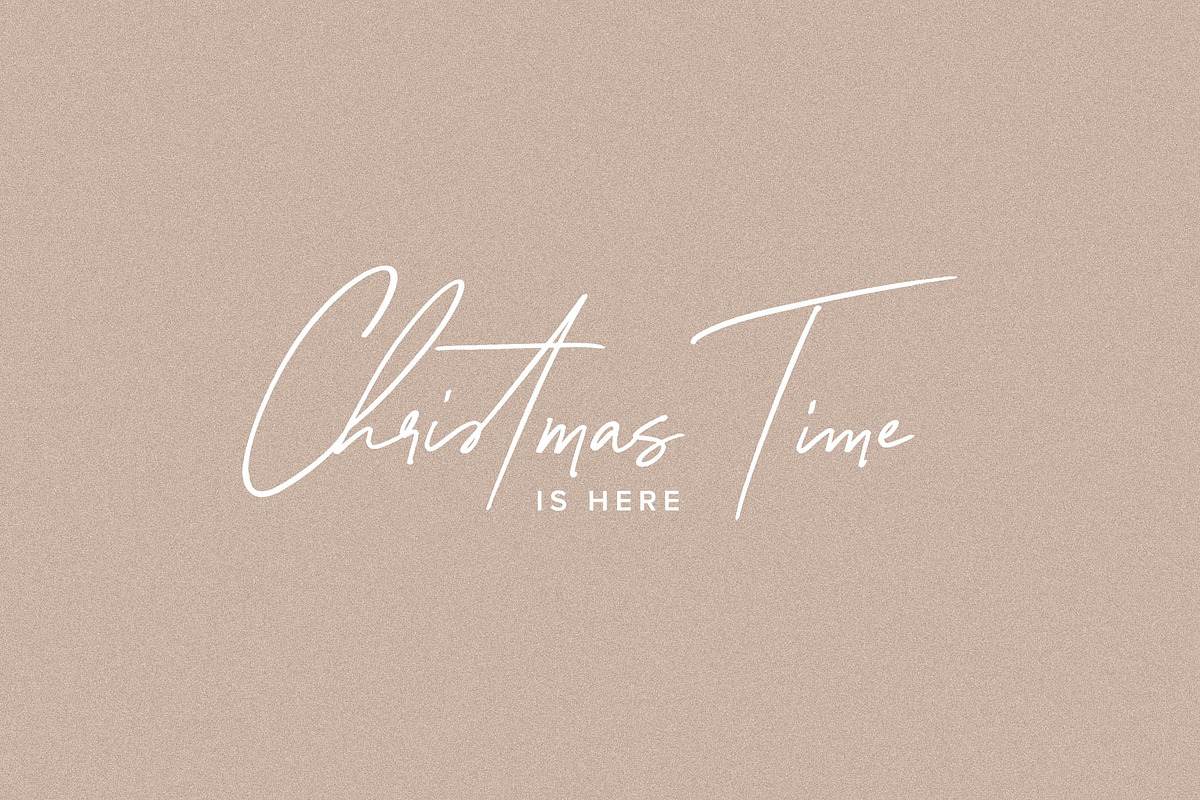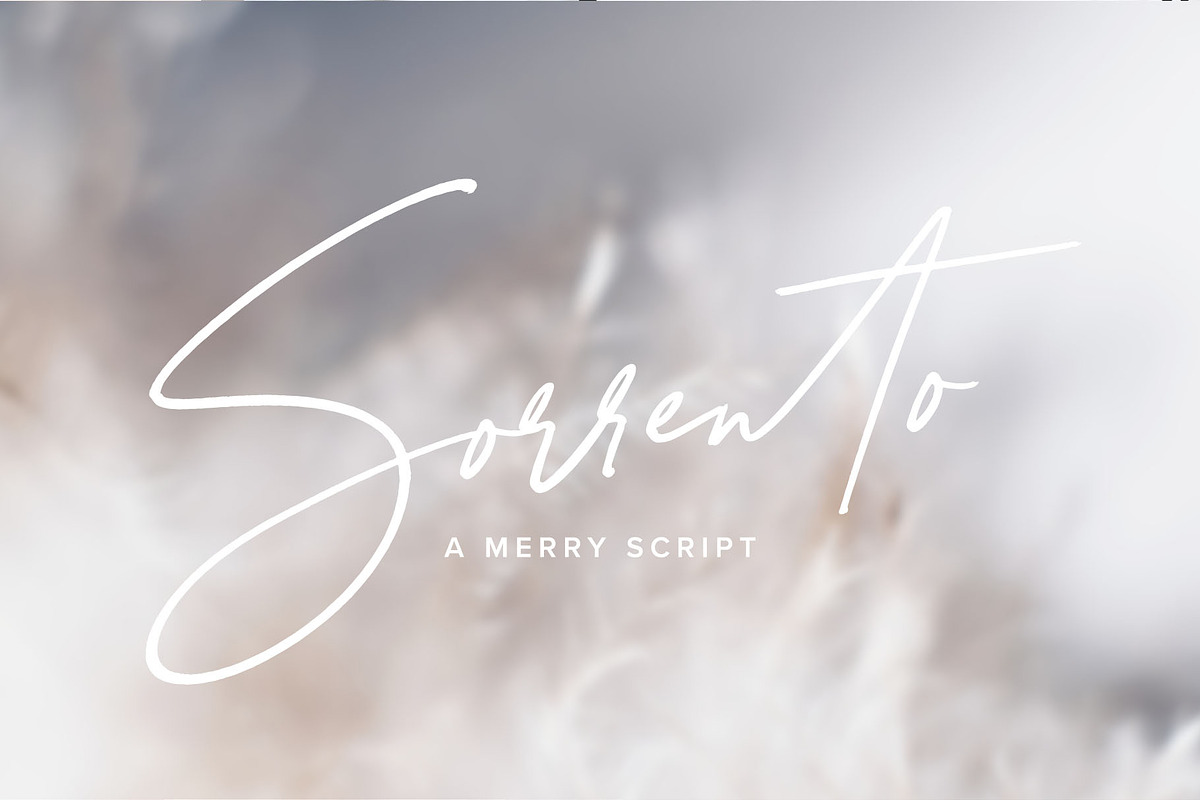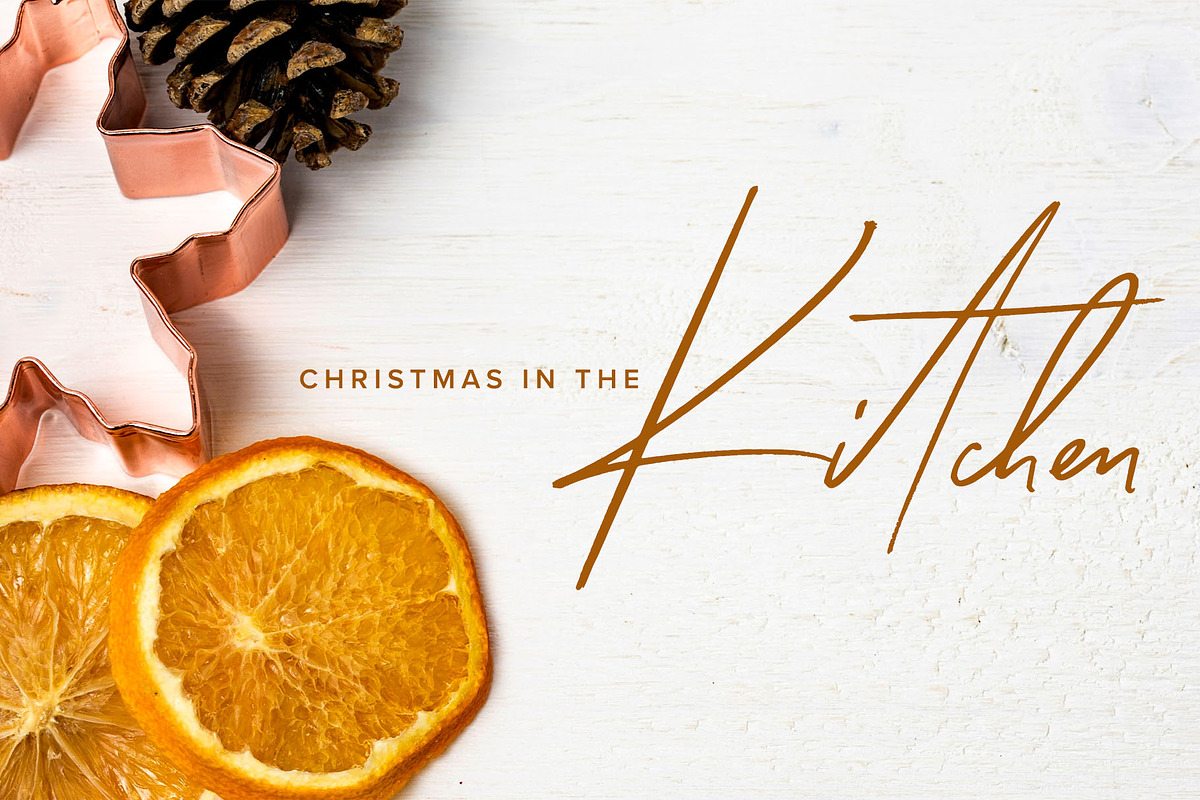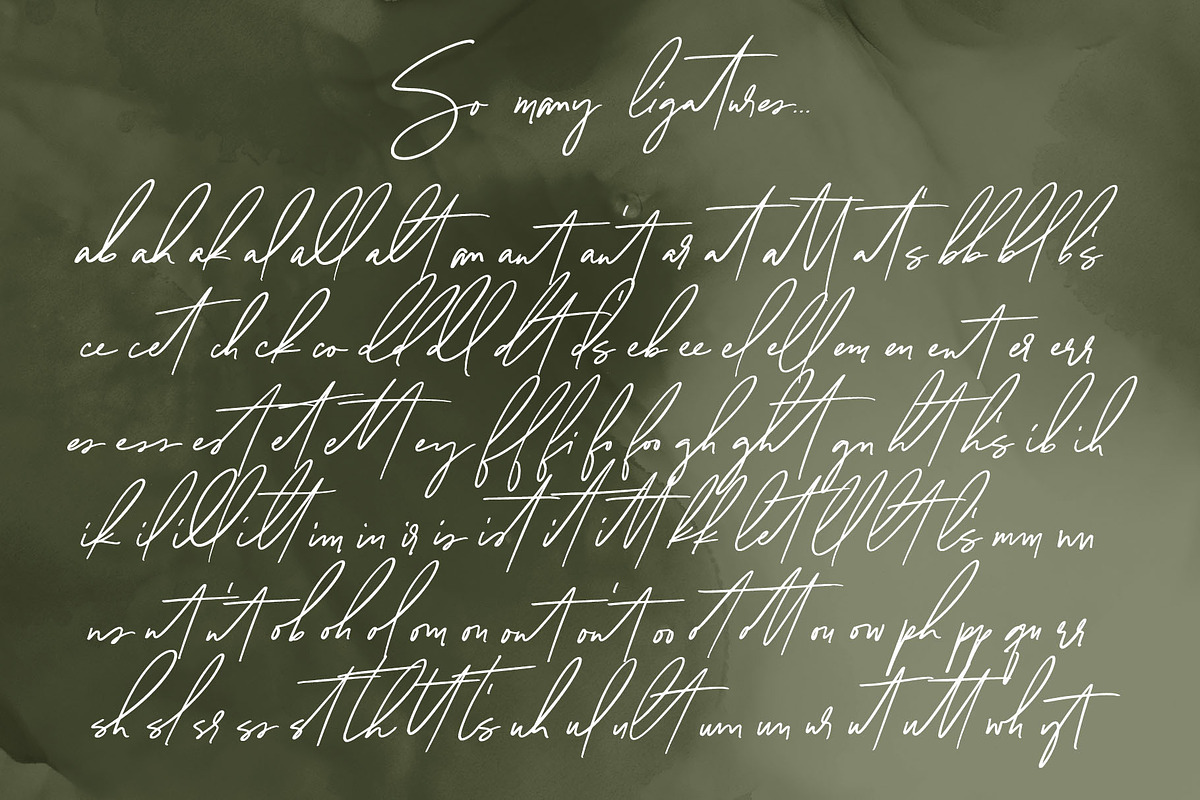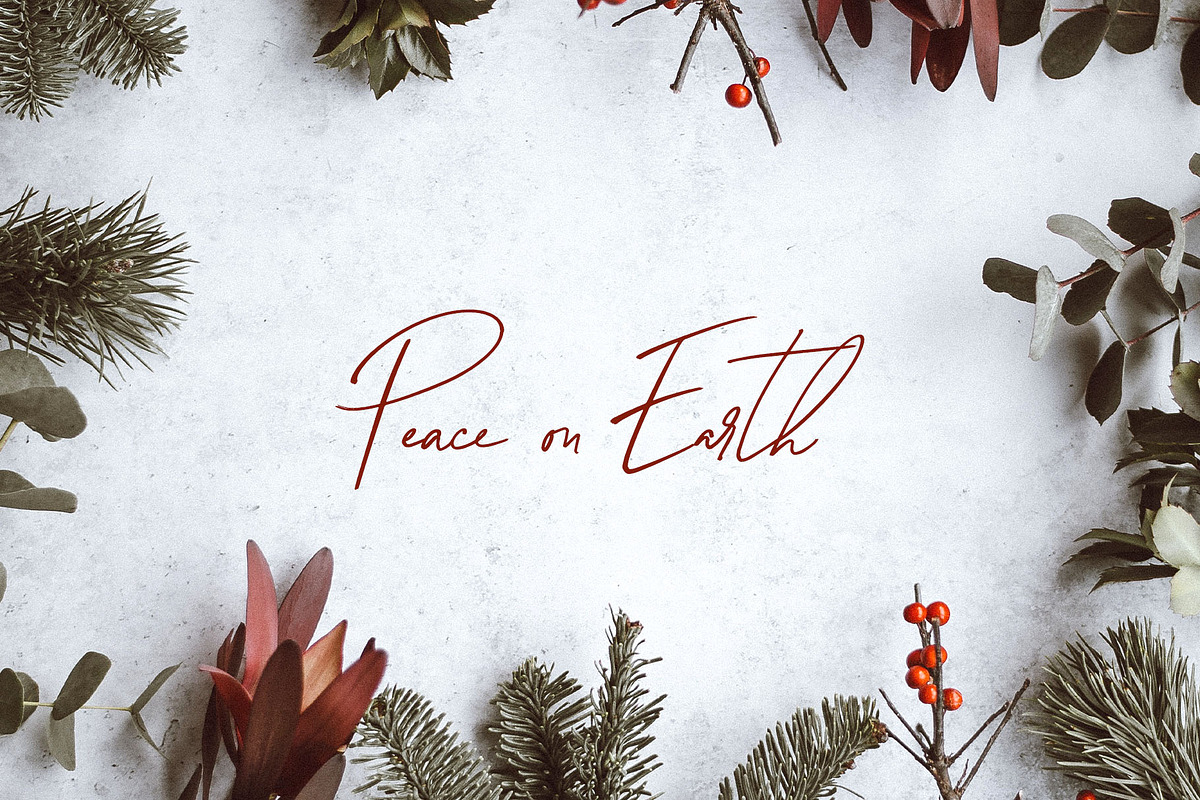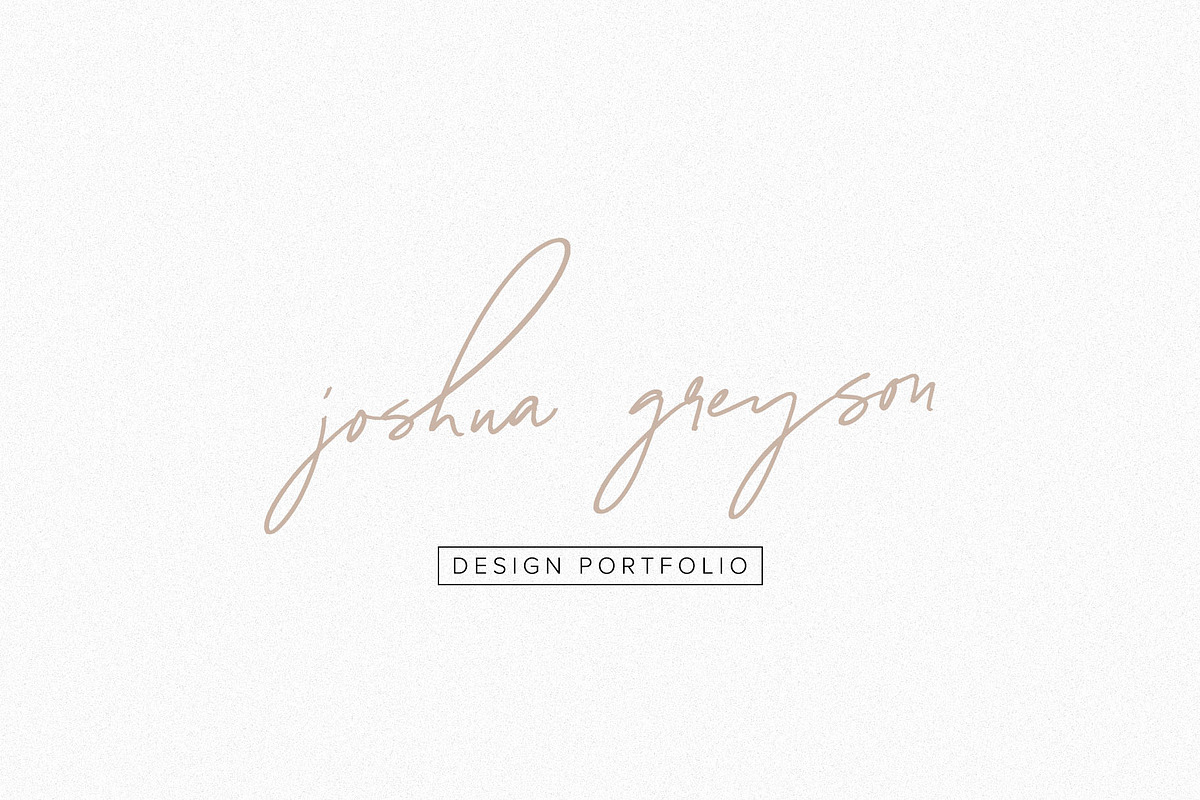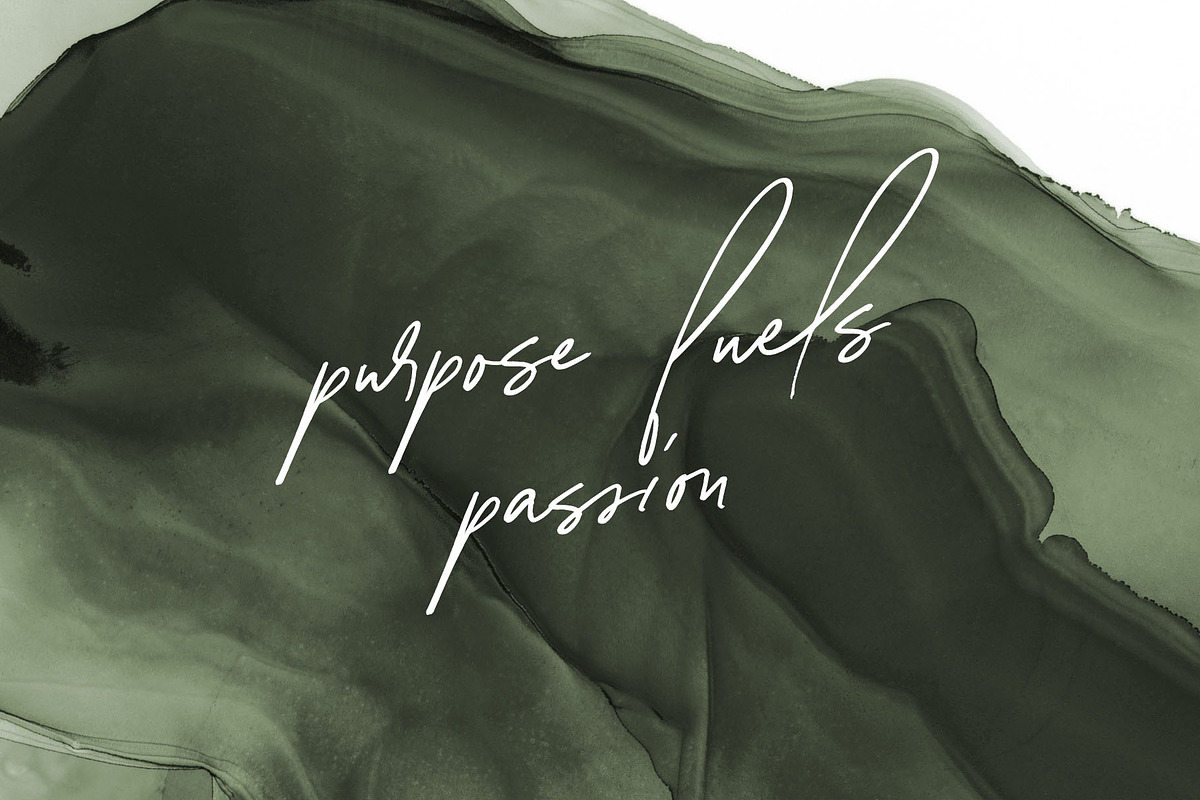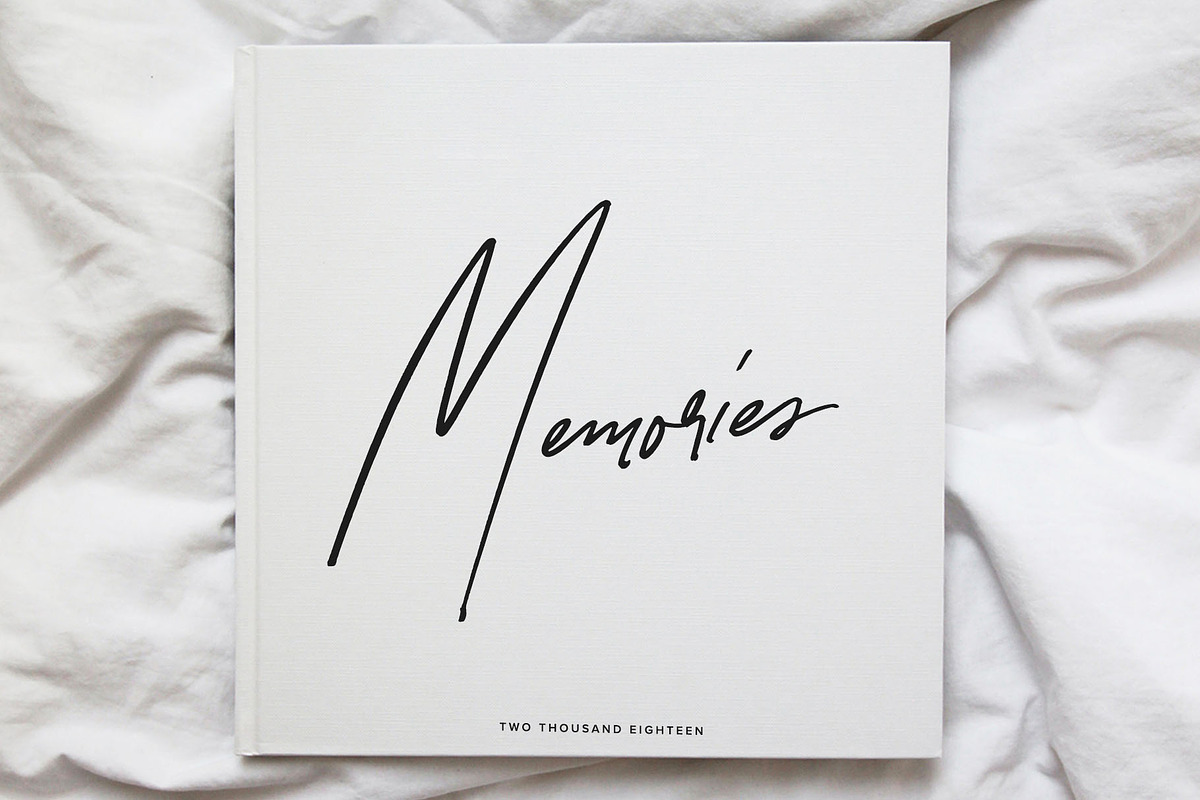
Sorrento | A Merry Script
This holiday font was inspired by playing around with different messy signature styles! The result was a ligature-heavy, lightly textured, messy font that looks totally hand-done.
Sorrento will look beautiful on Christmas and holiday invitations, wedding invites and stationery, logos, and more. I love using it for emphasis words and pairing it with sans serifs like Proxima Nova or Oxford.
- 106 ligatures (yeah, a lot!) - available via Glyphs panel
- Uppercase and lowercase alternates
- Foreign language support